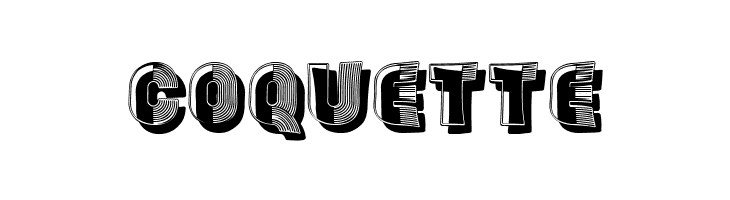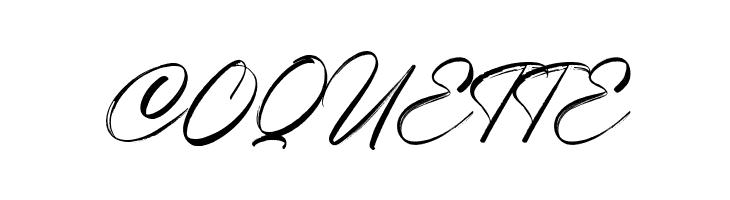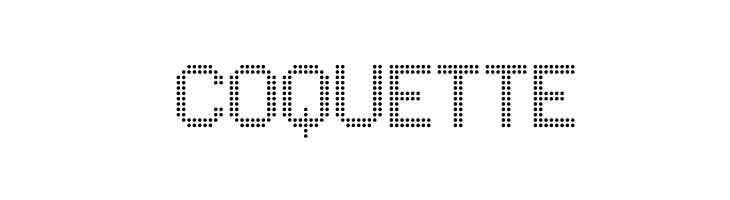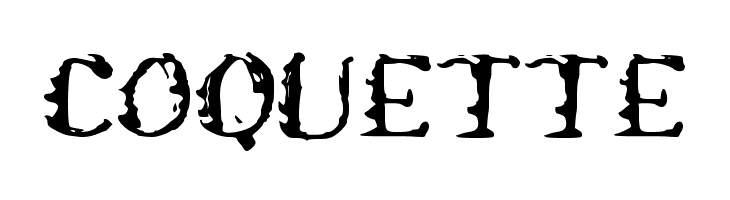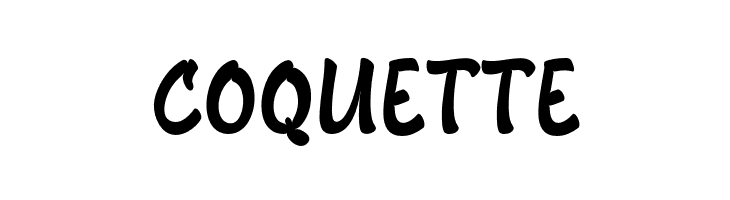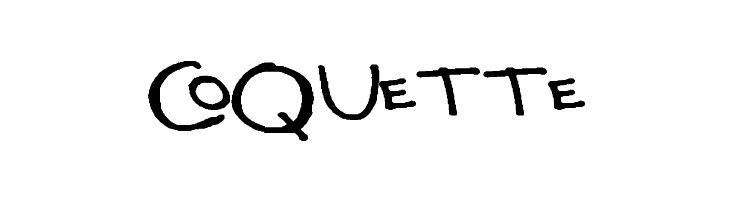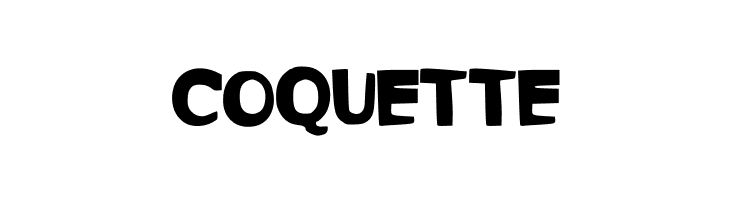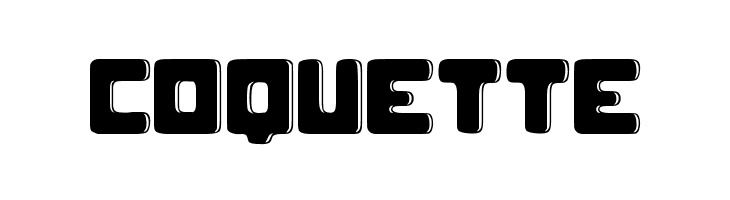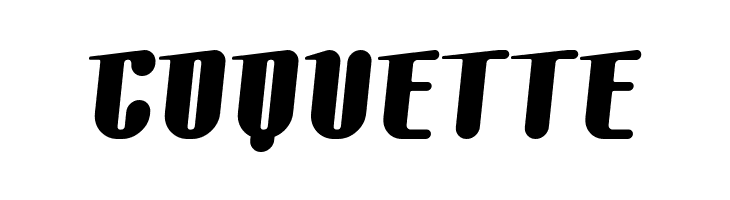
A playful, bold font with rounded, bubble-like characters ideal for fun designs.
A bold, cartoonish font with a playful, hand-drawn style.
A playful, handwritten font with a comic, whimsical style.
A playful, hand-drawn font with rounded, bold characters and a whimsical style.
A bold, playful handwritten font with a casual and friendly vibe.
A playful, bold font with rounded, slightly slanted letterforms.
A bold, comic-inspired font with a dotted texture and playful style.
A playful, comic-style outline font with rounded, hand-drawn characters.
A bold, striped decorative font with a playful and dynamic style.
A playful, bold, handwritten font with a comic-like style.
A bold, brushstroke-style font with a textured, hand-painted appearance.
A bold, shadowed font with a playful, comic book style.
A playful, handwritten-style font with flowing, cursive-like strokes.
A playful, handwritten font with bold strokes and a casual, friendly appearance.
A bold, playful font with a comic book style and hand-drawn feel.
A bold, playful font with thick strokes and rounded edges, ideal for comic-style designs.
A bold, rounded, and playful font with a cartoonish style.
A playful, bold font with a comic-like, hand-drawn style.
A playful, informal handwritten font with dynamic and irregular strokes.
A bold, calligraphic font with dynamic strokes and angular edges.
A bold, playful comic-style font with dynamic, hand-drawn characters.
A bold, geometric sans-serif font with a modern and clean aesthetic.
A bold, geometric font with high contrast and a striking, modern design.
A modern sans-serif font with clean lines and balanced spacing.
A bold, modern sans-serif font with clean lines and excellent readability.
A bold, modern typeface with strong, thick strokes and excellent legibility.
A clean, modern typeface with consistent stroke width and balanced proportions.
A bold, modern font with thick strokes and strong visual impact.
A clean, modern sans-serif font with a light weight and excellent legibility.
A modern, clean sans-serif font with excellent readability.
A modern, semi-bold typeface with clean lines and excellent legibility.
A modern, thin sans-serif font with a clean and minimalist design.
A graceful, flowing script font with elegant curves and slender lines.
A bold, three-dimensional font with a strong, impactful presence and geometric shapes.
A bold, dynamic script font with fluid strokes and an energetic style.